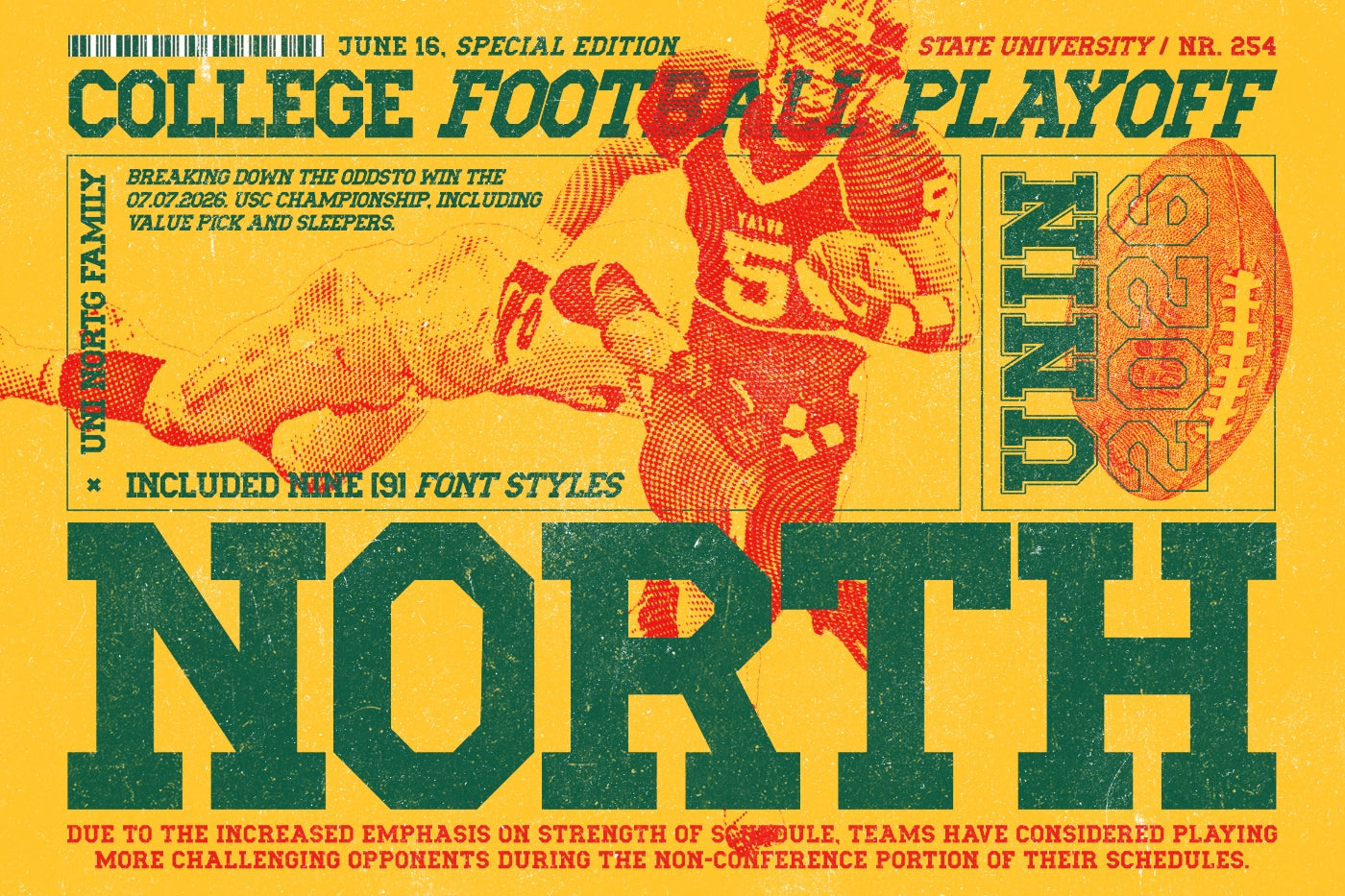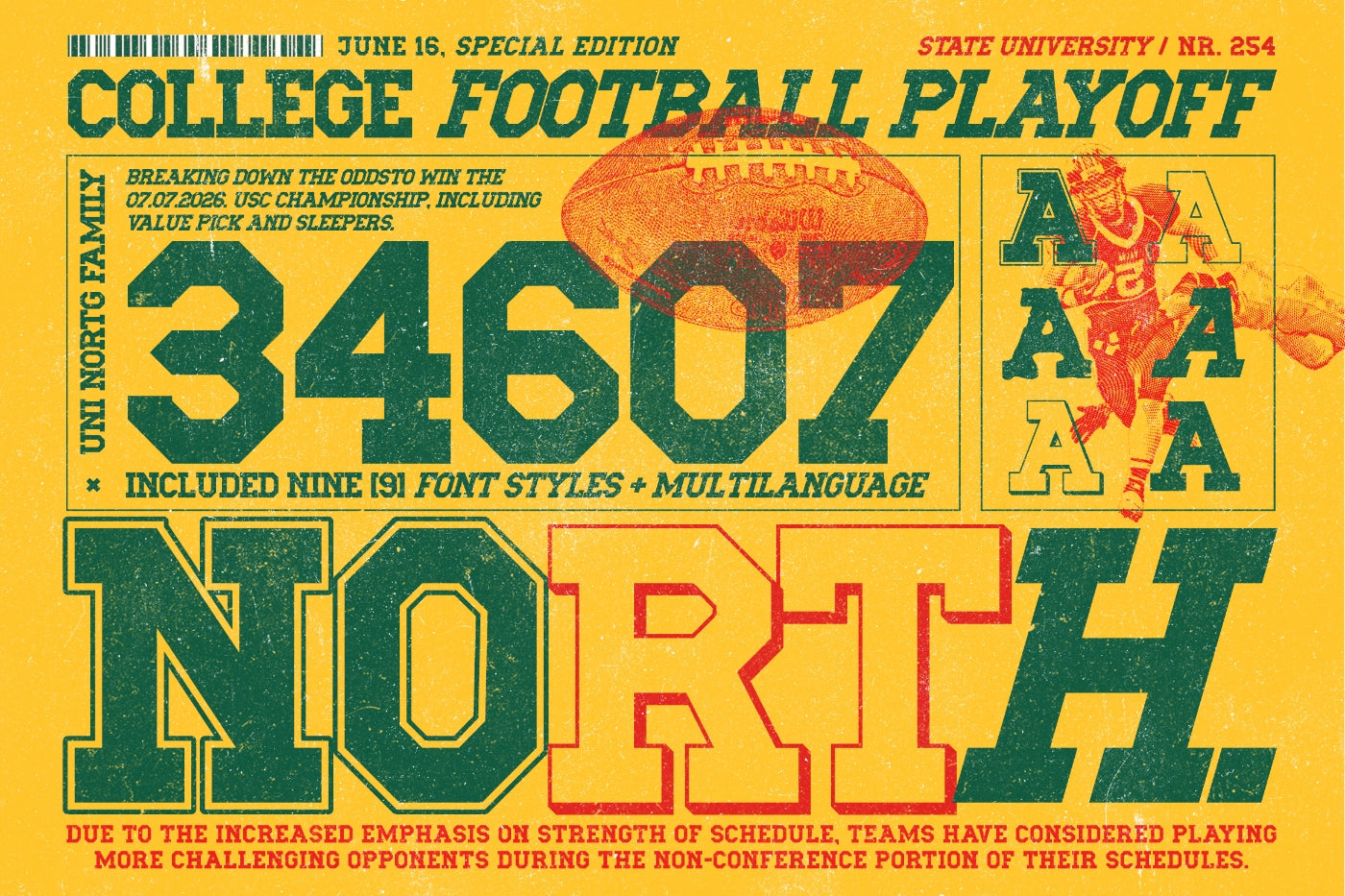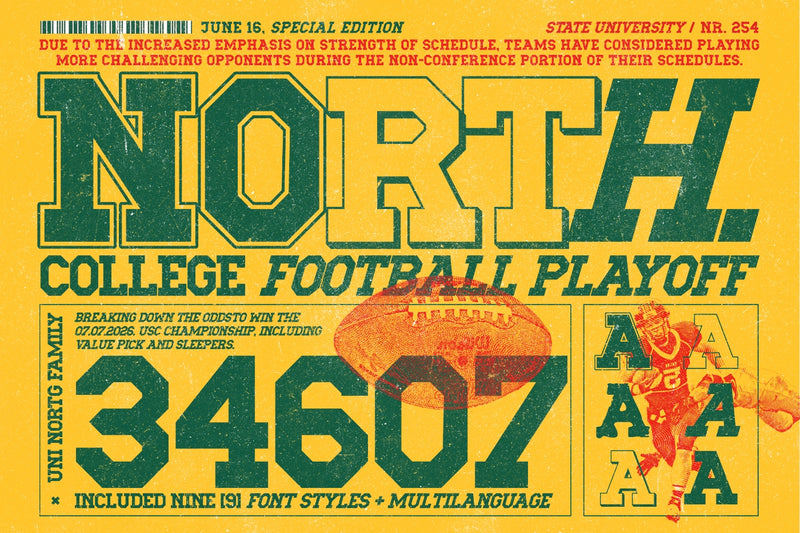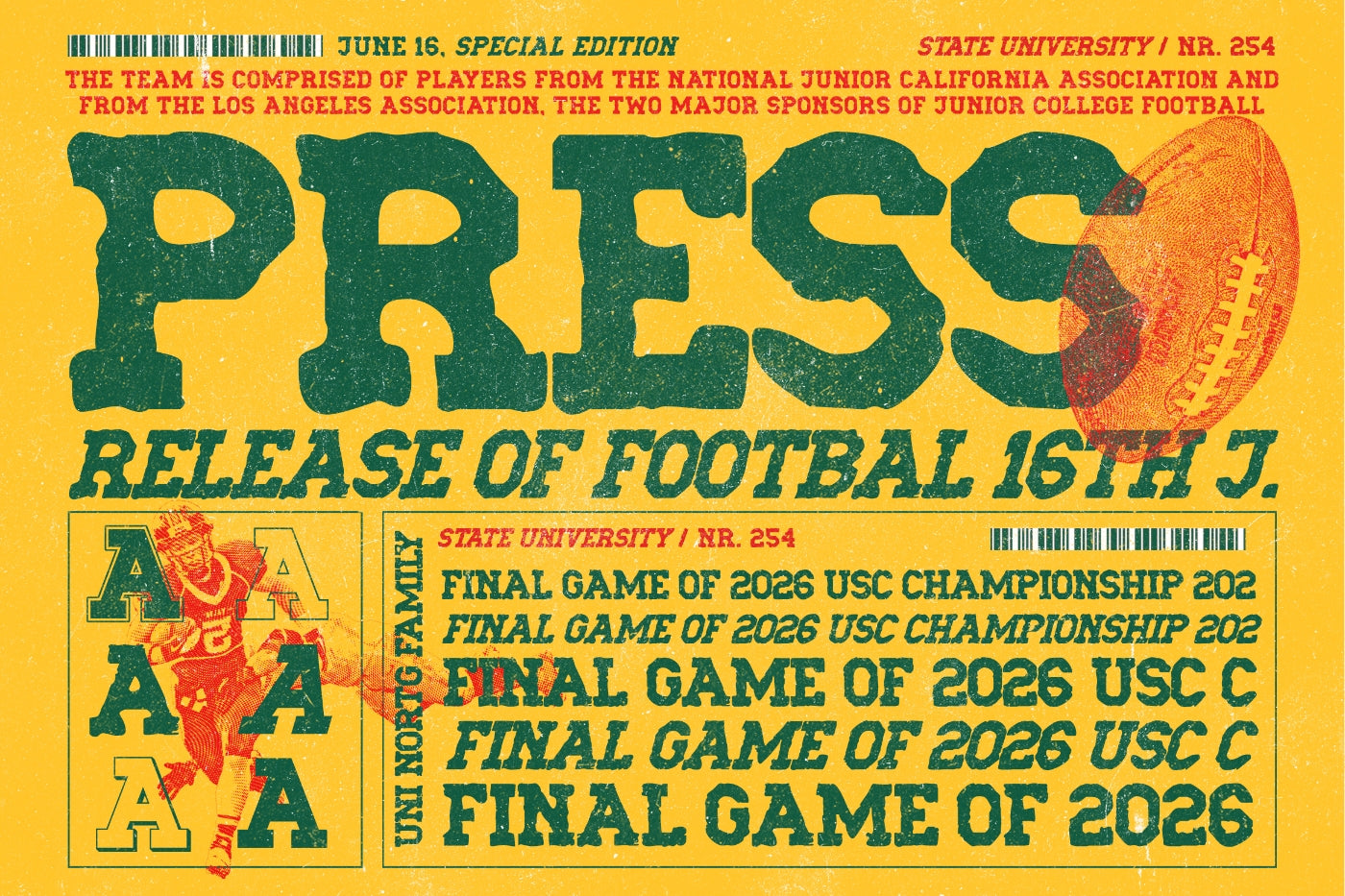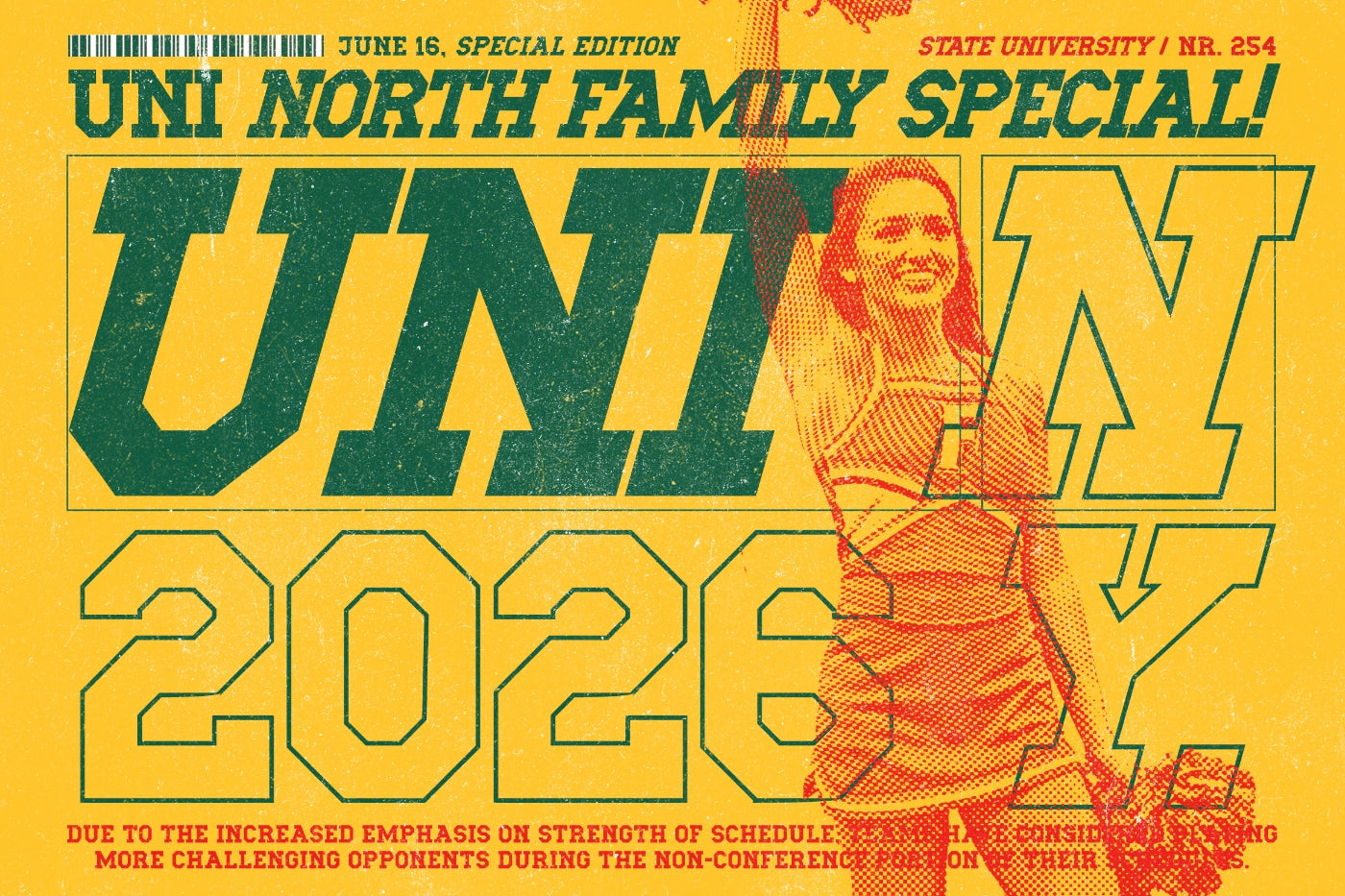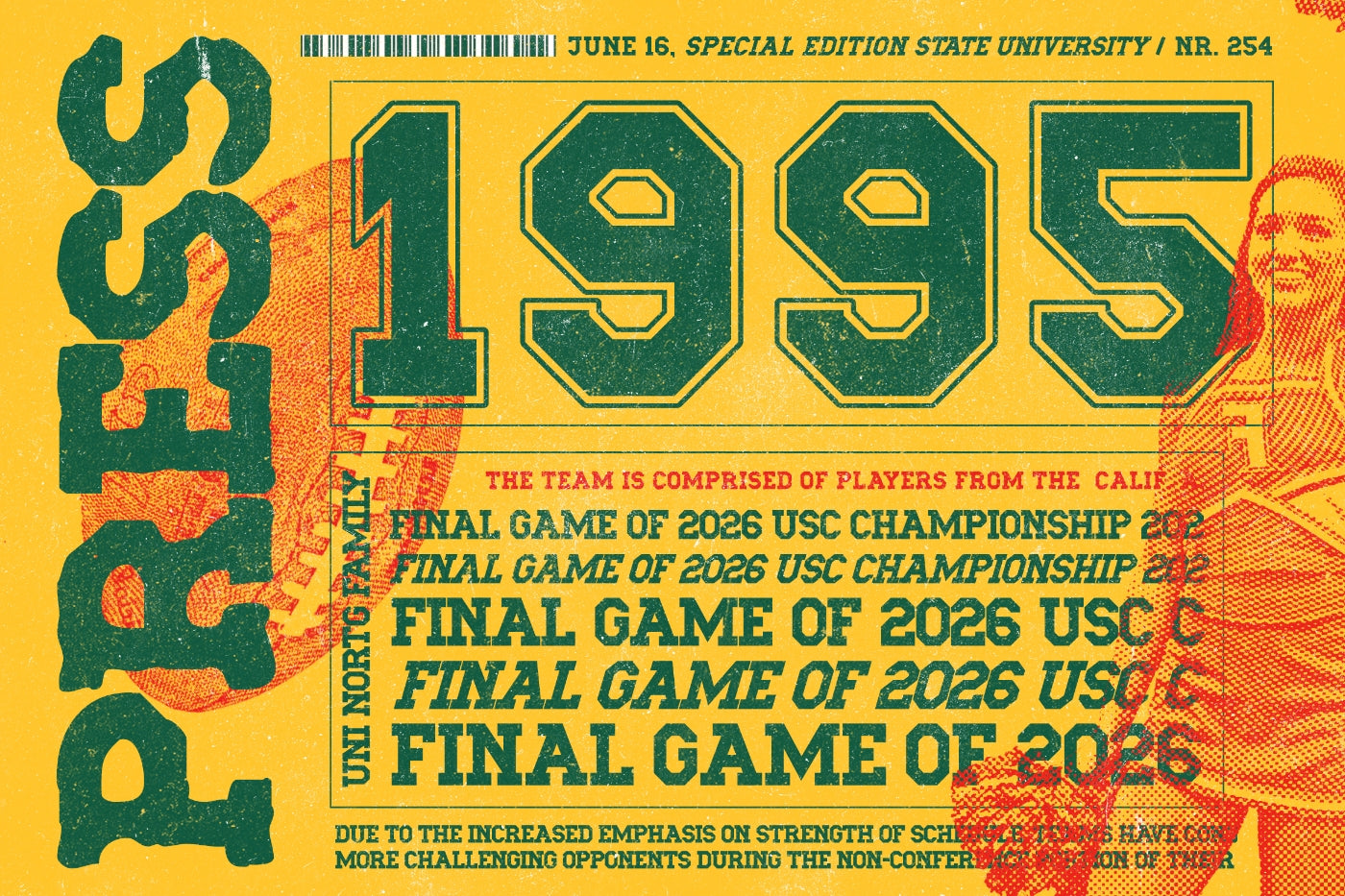
UNI North Font.
UNI North Font is a handcrafted vintage and slab serif. Inspired by university sports, retro posters, and magazines, postcards, and ads from the 70's to the '90s.
The font comes in 9 styles. From Regular to Italic, College variation, and many others.
The font stays in memory once you see it and it is ideal for display text, print, and also for user interfaces, mobile devices, web design, and posters, with a set of optimal characters for your design in any layout.
It looks especially great on a large scale, although it still carries it at smaller point sizes.
UNI North Font Features:
Stylistic alternatives
Ligatures
International characters (Multilingual)
Punctuation & symbols
OpenType Features
Uppercase
Multilanguage Support: English, Albanian, Danish, Dutch, Estonian, Croatian, Bosnian, Slovenian, Finnish, French, German, Icelandic, Italian, Norwegian, Portugese, Spanish, Swedish with a lot of other languages; see Full Character List.